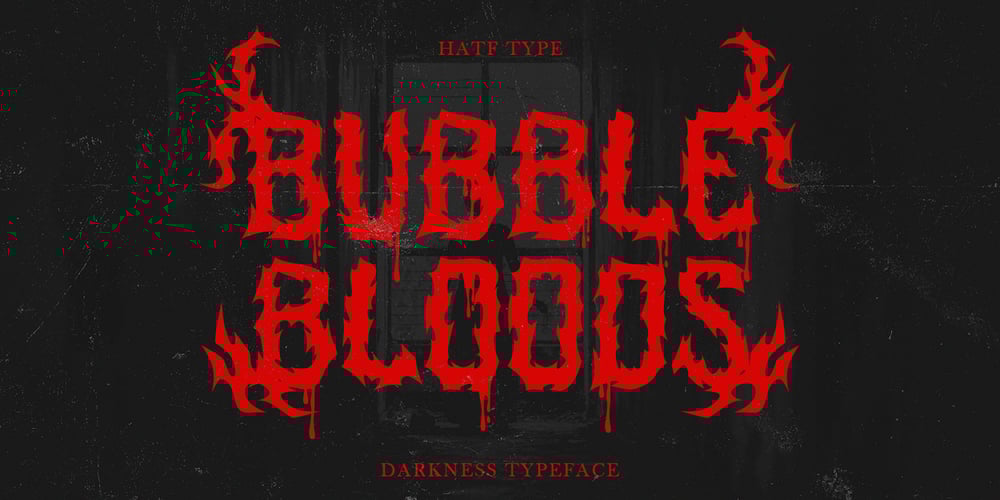
Bubble Bloods Font Family was designed by Asep Rendi and published by Hatftype. Bubble Bloods contains 2 styles and family package options. This is a blackletter display font with additional ornaments inspired by gothic and horror metal styles because its shape is very unique and very suitable for any project you will use with this theme.Features : Uppercase & Lowercase Multilingual support Number Symbol Ornament Punctuation Support in Mac and Windows OS Support in design application (photoshop, illustrator, and more) I really hope you enjoy it.